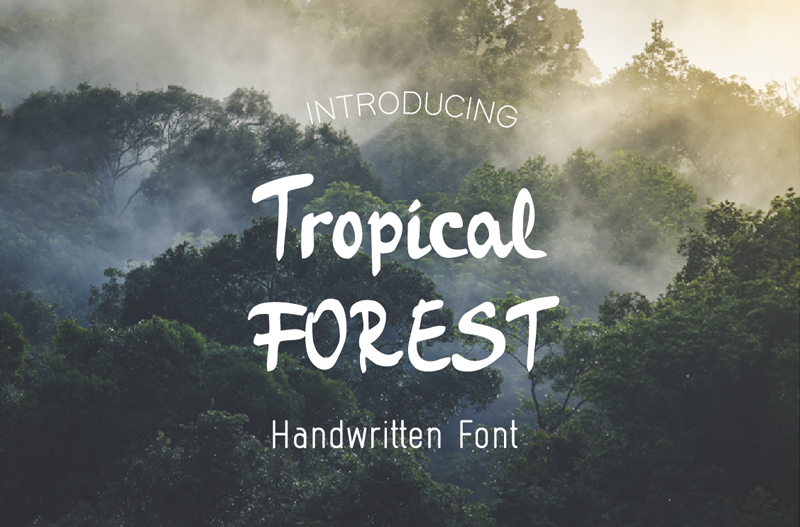
Preview and download Tropical Forest Font. Created by Alessandra M in Script Handwritten styles with Free for personal use license.
Font name: | Tropical Forest |
Author: | Alessandra M |
Note by Alessandra M | |
Tropical Forest is a handwritten font created with marker pen. Tropical Forest contains basic Latin characters, lowercase and uppercase, punctuation and numbers. THIS FONT IS FREE FOR PERSONAL USE Commercial license available on Creative Market https://creativemarket.com/AlessandraM/1483838-Tropical-Forest-Handwritten-font and alexa.marjanovic@gmail.com |